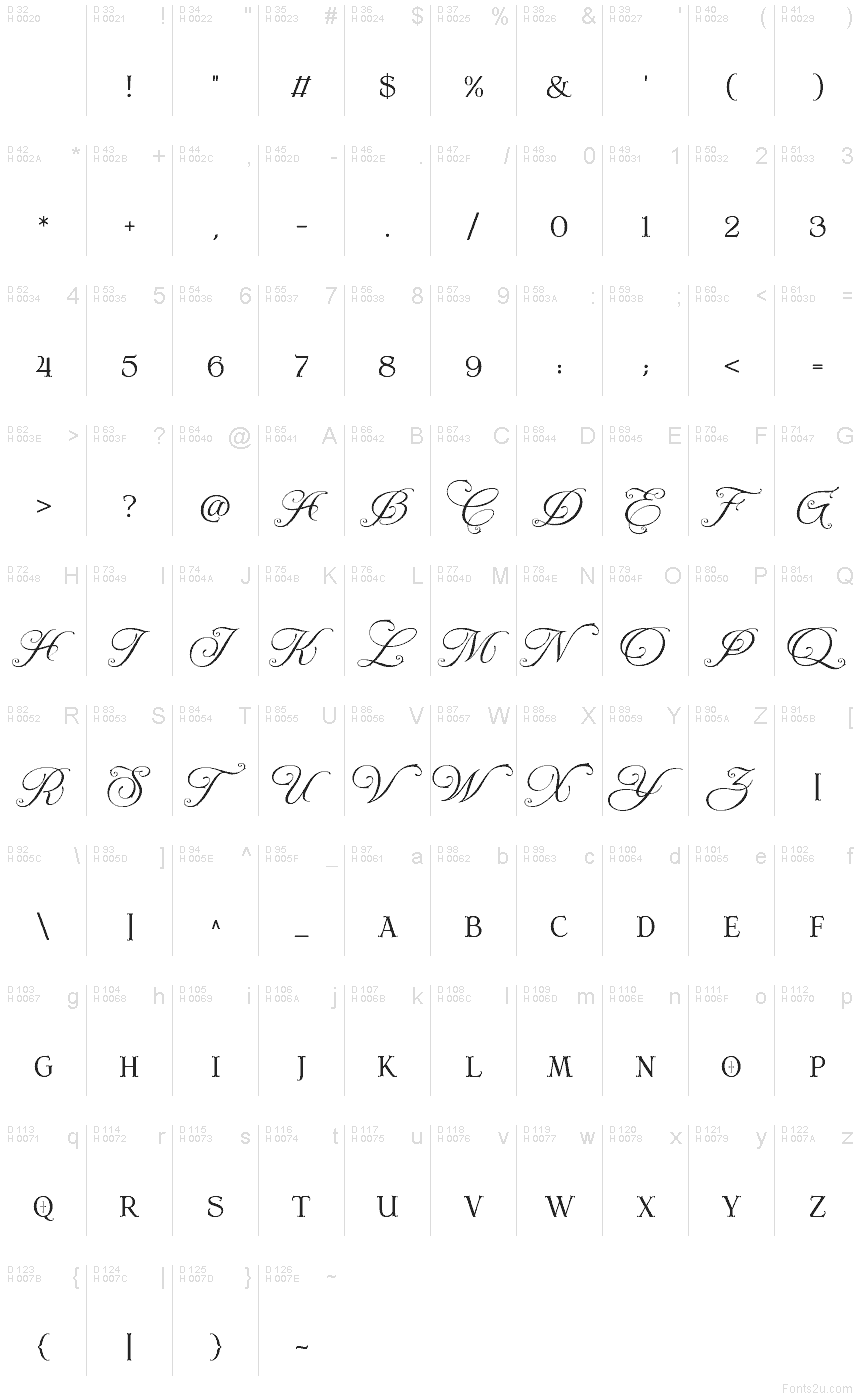
Young Morin Regular
Young Morin font is an elegant display typeface by Alit Design. Its ornate, vintage-inspired design is masterfully decorative and perfect for turning heads. The free font has stylish curves and unfinished strokes that outline its sophisticated aesthetics within each character.
With elegance being the main theme, Young Morin is excellent to experiment with in luxury branding design, fashion magazines, logo design, signage, poster typography, and much more. Projects related to jewelry design/advertising like business cards and package labeling are amazing ideas as well.